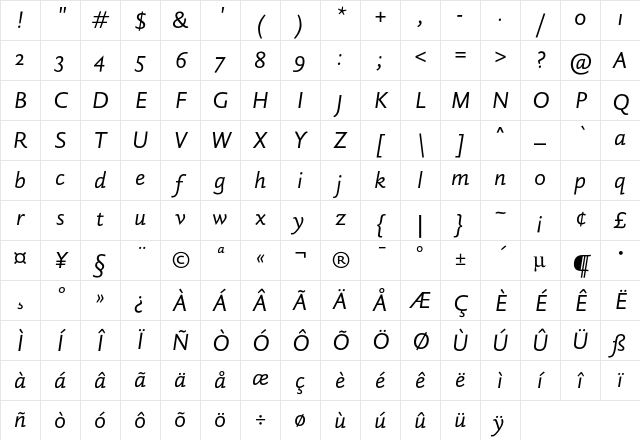
DTL Haarlemmer SD Sans Italic Free Font
DTL Haarlemmer SD Sans Italic
Style: SD Sans Italic
Design Context for DTL Haarlemmer
DTL Haarlemmer is a composed and adaptable typeface that performs quietly and consistently across a wide range of design contexts. The slanted form adds forward momentum and visual energy.
Pro Tip: Use DTL Haarlemmer for emphasis, pull quotes, and subheadings where its slanted energy can add rhythm to the layout.